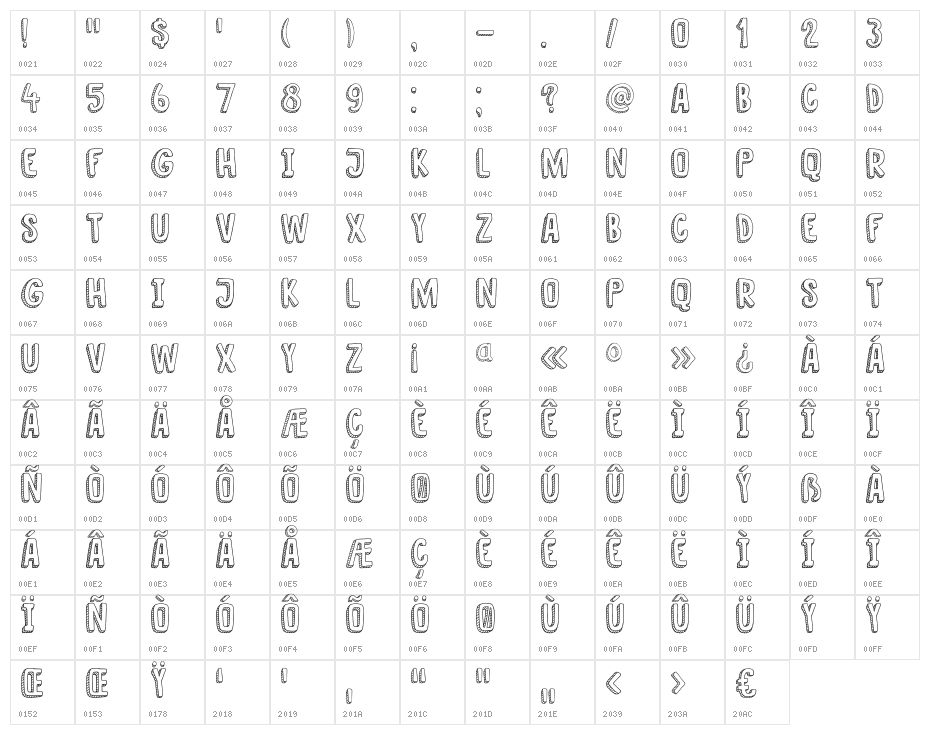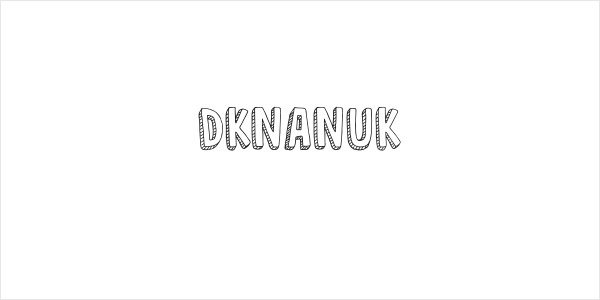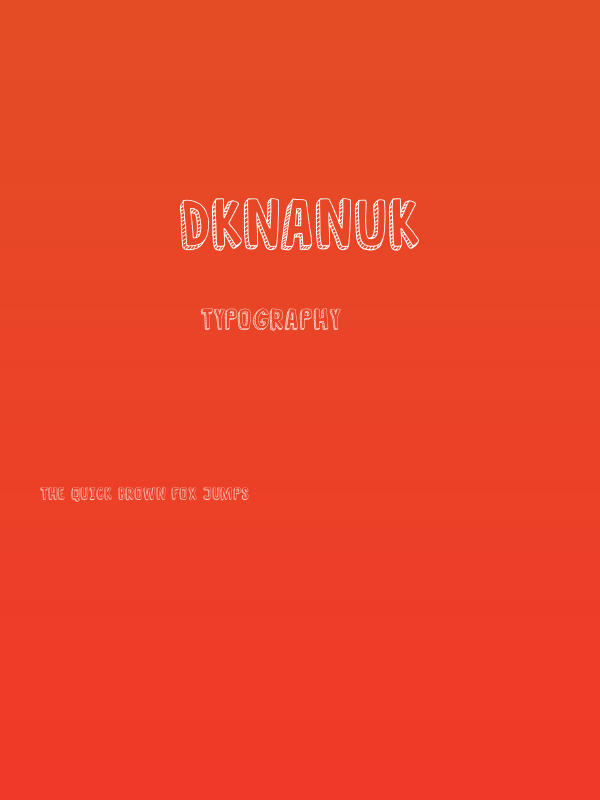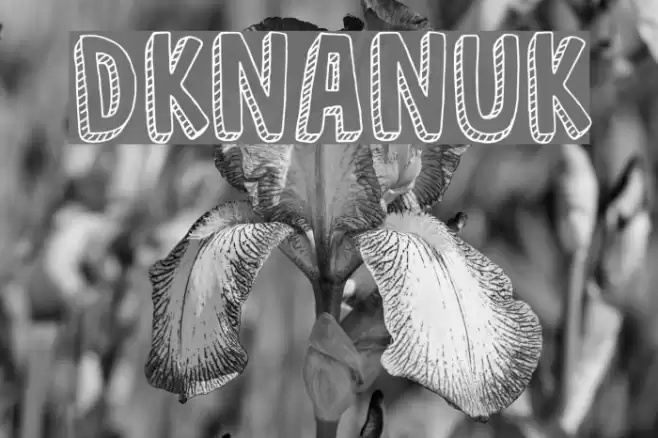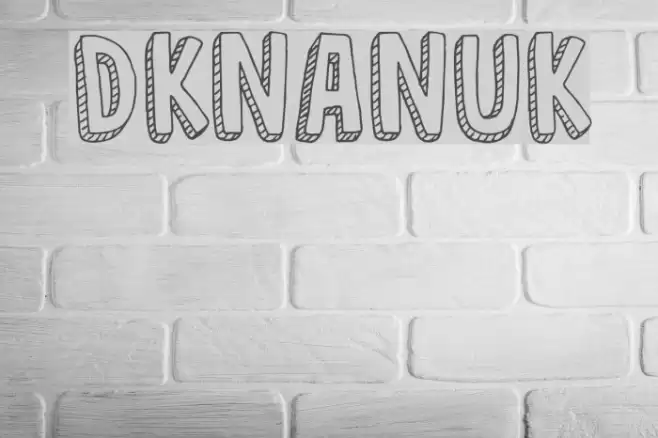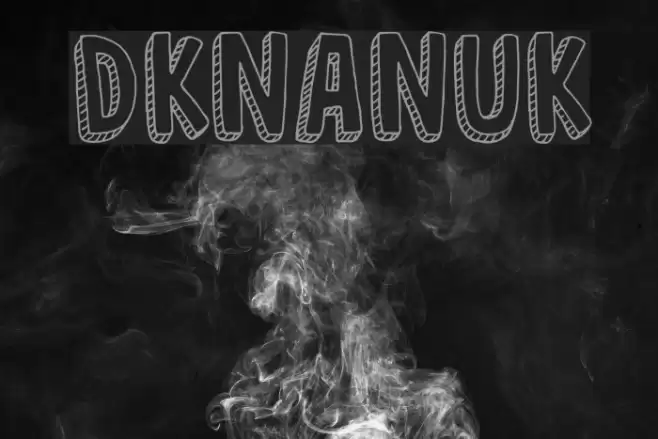
DKNanuk Font
DKNanuk Description
This font features a playful and bold design with a hand-drawn aesthetic. Each character is outlined with a thick, textured line that gives it a three-dimensional appearance. The letters are uppercase and lowercase, with a consistent, rounded shape that adds to the whimsical feel. Numbers and special characters are included, maintaining the same style. The font's unique, sketch-like quality makes it stand out, perfect for creative projects that require a fun and informal touch.
| Proposed Projects | Ideal for children's books, comic strips, playful branding, and creative posters. |